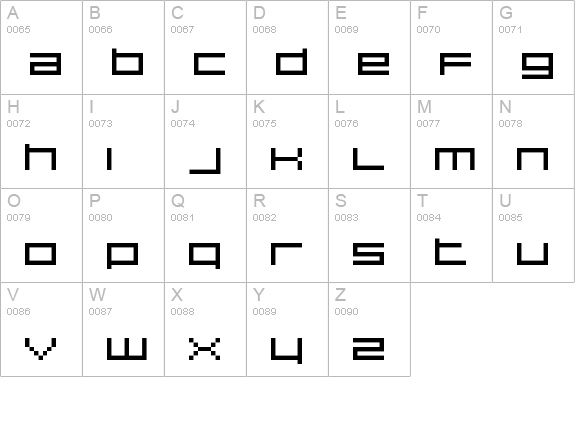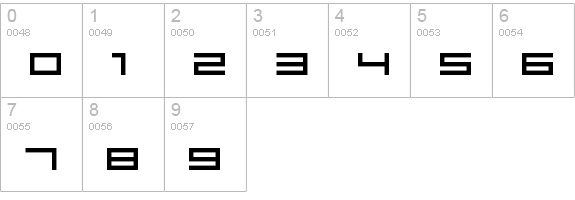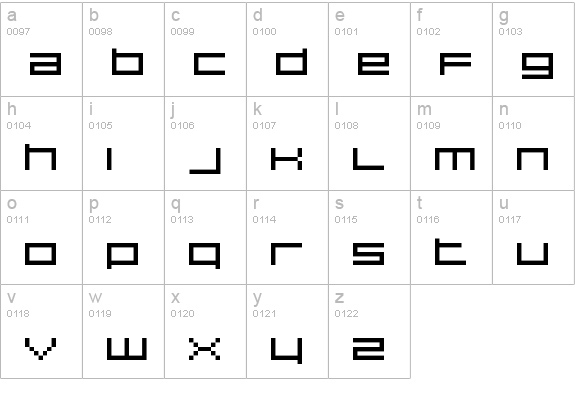
HISCORE Font Details
HISCORE font is a modern and stylish typeface that exudes a sense of energy and dynamism. Its bold and impactful design makes it perfect for creating eye-catching headlines, posters, and other graphic design projects. With its sharp edges and futuristic look, HISCORE font is sure to make your designs stand out. The best part? HISCORE font is available for free download at FontsMarket.com. This means you can easily access this versatile and attention-grabbing font without any cost. Whether you're a professional designer looking to enhance your projects or a hobbyist wanting to add a creative touch to your creations, HISCORE font is a fantastic choice that won't break the bank. Download it today and start adding a touch of modern flair to your designs!